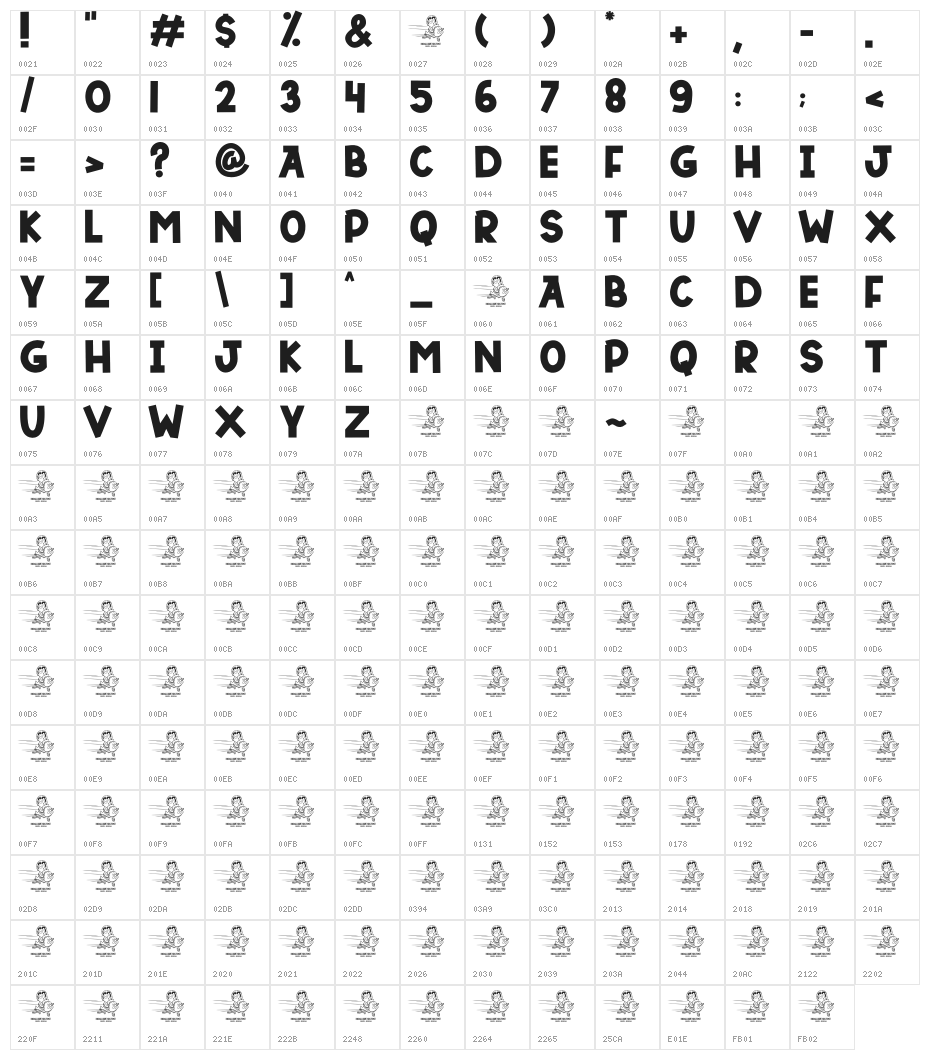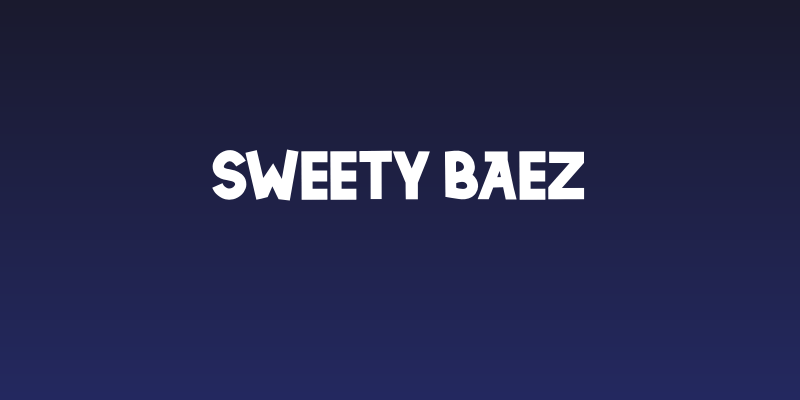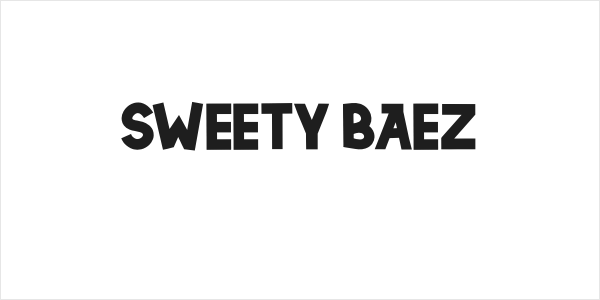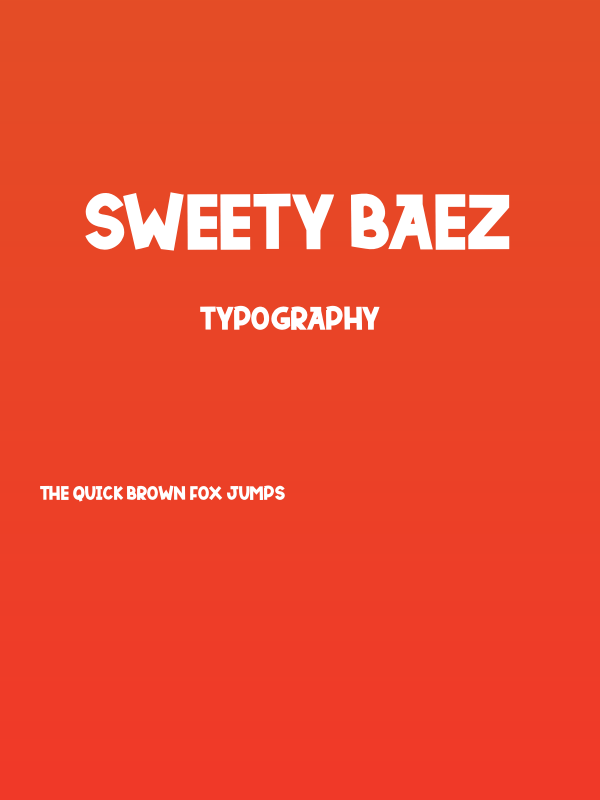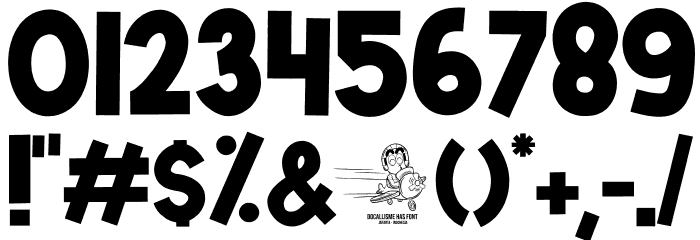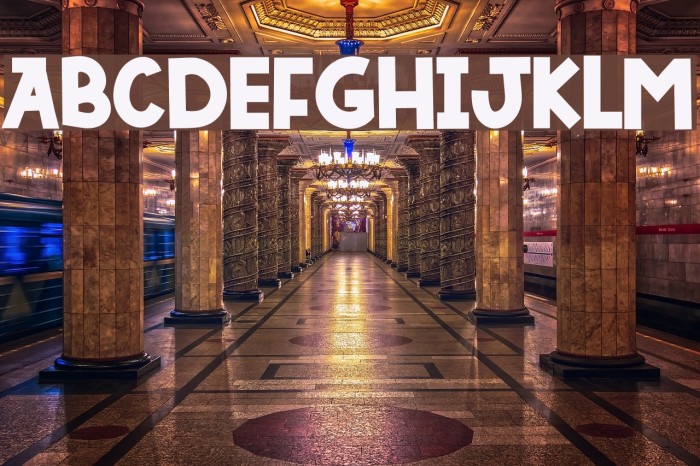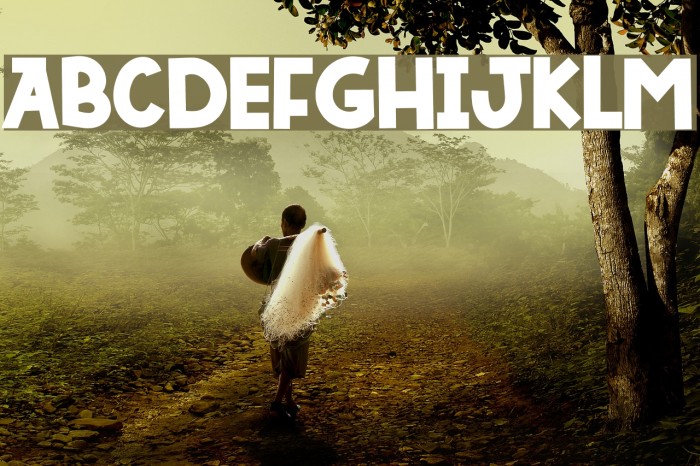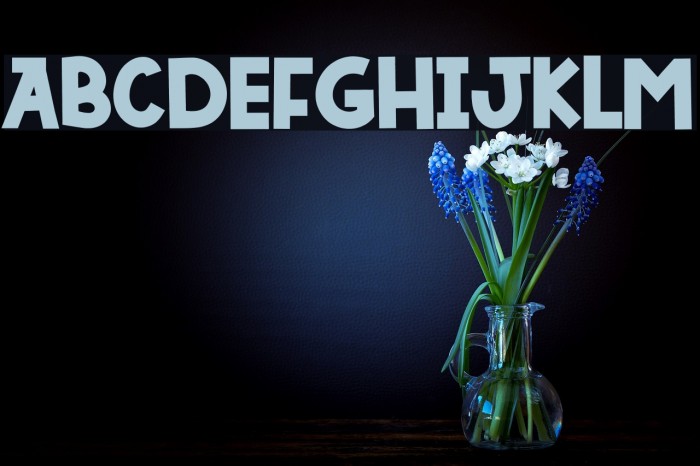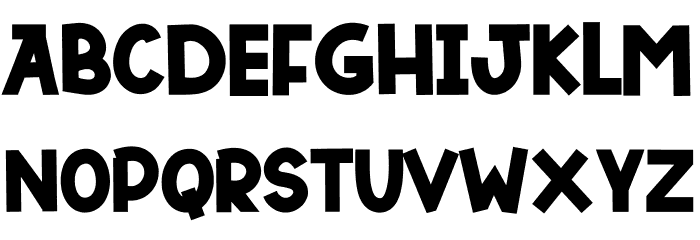
SWEETY BAEZ Font
SWEETY BAEZ Description
This font features bold, playful characters with a slightly irregular shape, giving it a whimsical and friendly appearance. The letters are thick and rounded, with a consistent stroke width that adds to its boldness. The uppercase and lowercase letters maintain a uniform style, while the numerals and special characters complement the overall design. The font's playful nature makes it suitable for informal and fun projects, providing a sense of warmth and approachability.
| Overall Style | Playful, Whimsical |
| Proposed Projects | Ideal for children's books, playful branding, party invitations, and casual posters. |